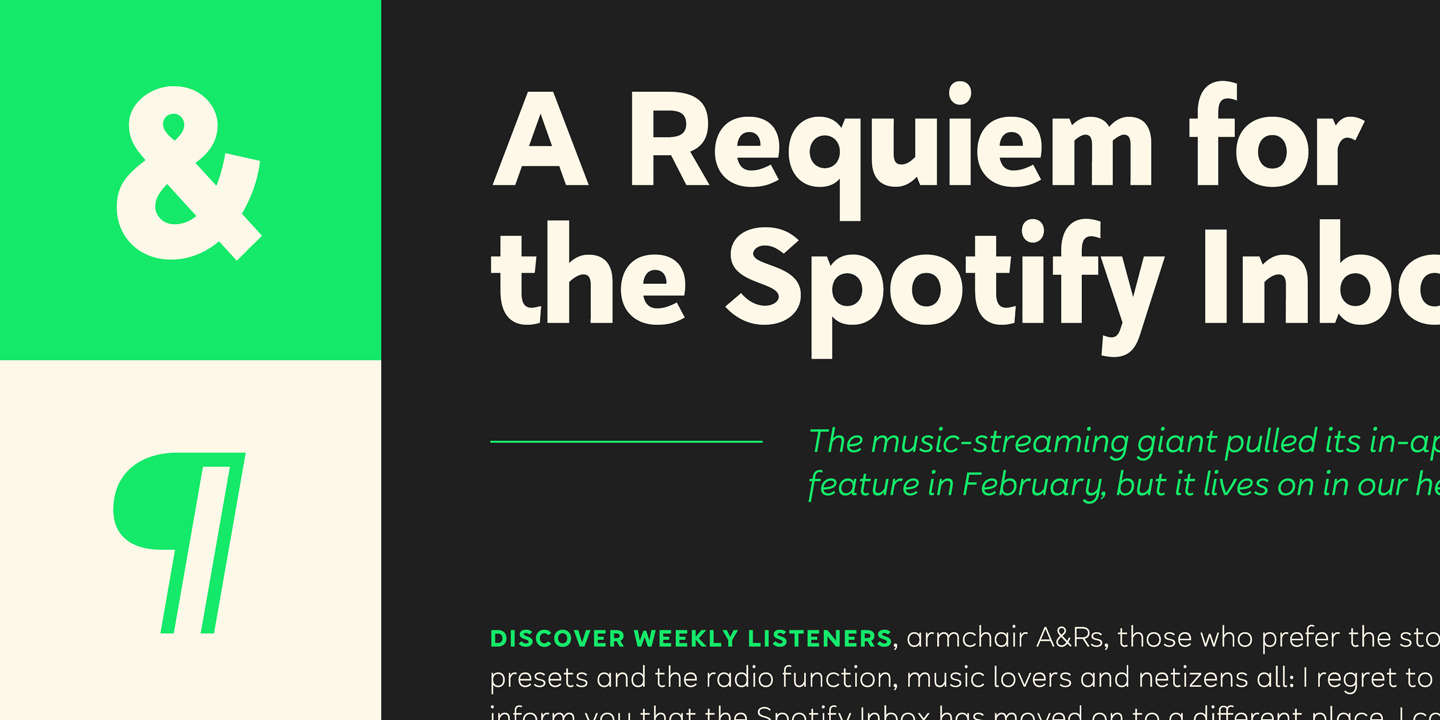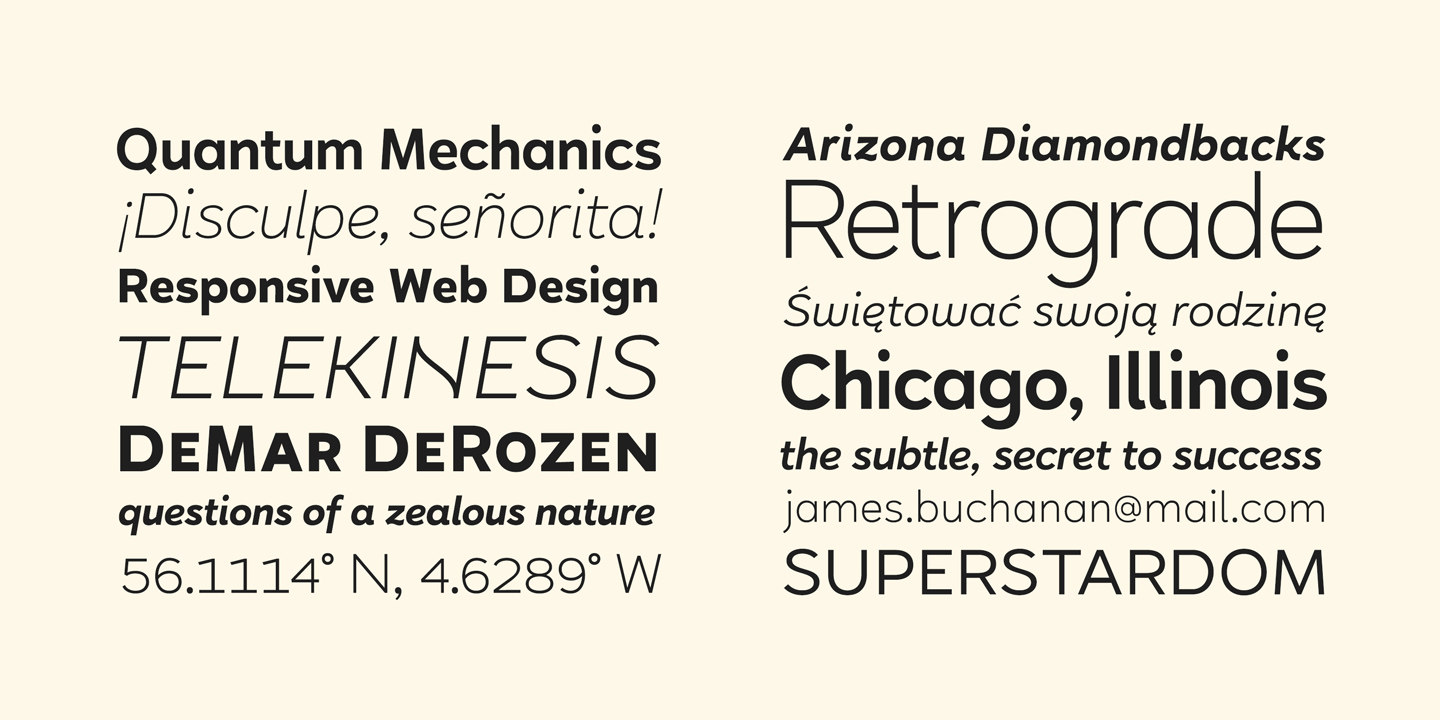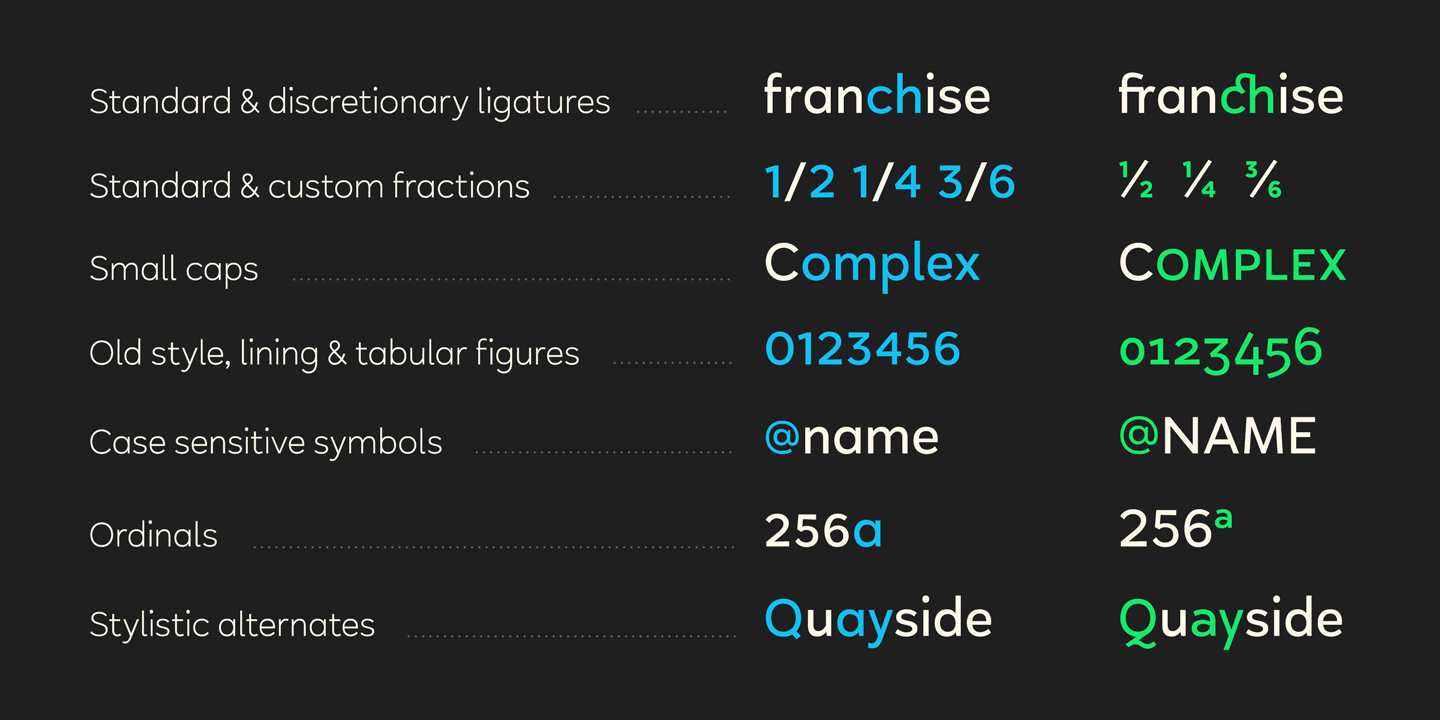
Halcyon is a post-geometric typeface made up of 16 fonts across 8 weights. Each weight contains an upright with a corresponding true italic. Halcyon's design builds on the foundations of classic typefaces such as Futura, Gill Sans and ITC Avant Garde Gothic, by mixing their geometric structure with more modern humanist qualities and attributes. The result is a friendly and approachable personality with a sophisticated and serious edge. Halcyon feels familiar, but unique, playful but not asinine. The versatility of its character makes Halcyon a reliable choice for any design decision. With a large variety of weights, and a whole host of Open Type features, Halcyon can adapt to fit the tone of your communications. The lighter weights present a more refined and formal voice, while the heavier, oversized weights grow more exuberant. It's large x-height and open apertures increase it's legibility, making it perfect for setting large display headlines or small sized, long form text. Halcyon is a multilingual family with hundreds of accented characters, and allows for customisable characters through diacritic combinations. All European languages are already covered, alongside many more within the Latin alphabet.